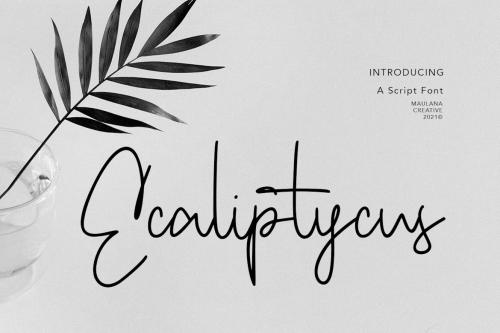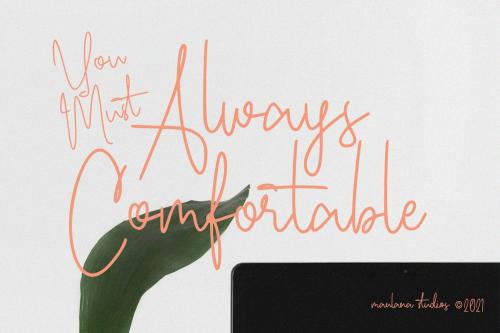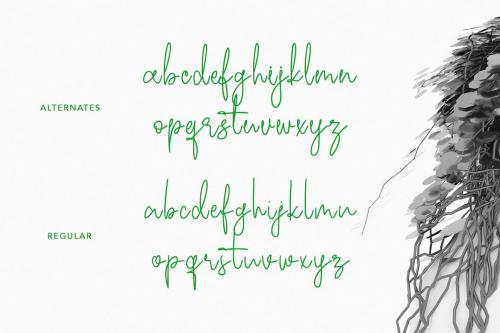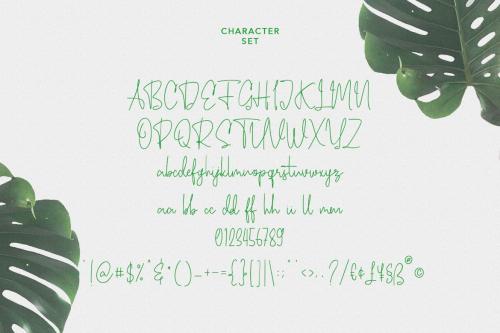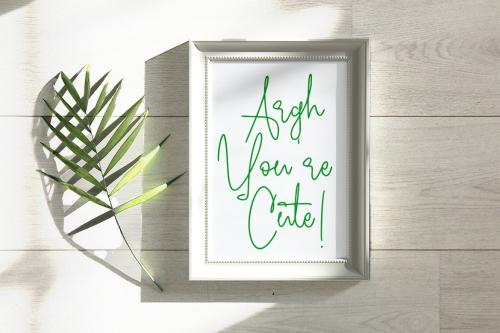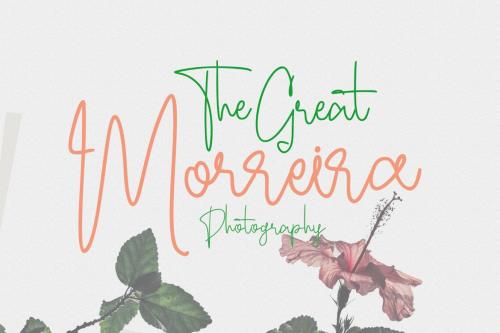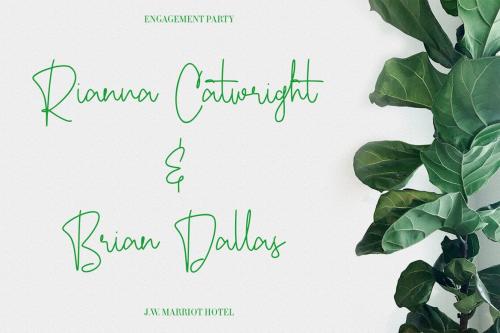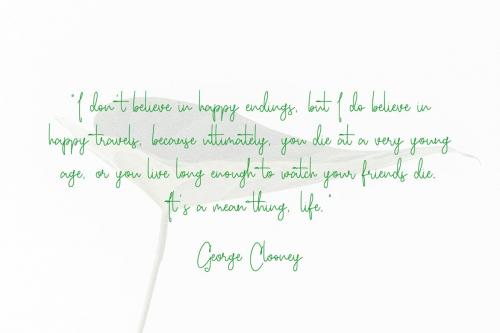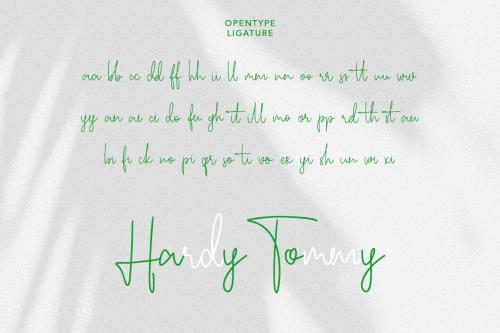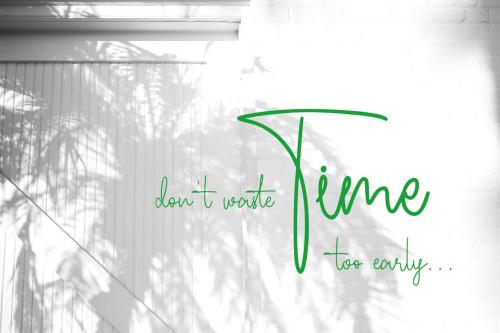
Ecaliptycus Script Font
Ecaliptycus is casual script font, with clean mono-line stroke, upright and fun character. It has Opentype features ligatures of character and alternate lowercase option, To give you an extra creative work. Ecaliptycus script font support multilingual more than 100+ language. This font is good for logo design, Social media, Movie Titles, Books Titles, a short text even a long text letter and good for your secondary text font with sans or serif. Make a stunning work with Ecaliptycus font.